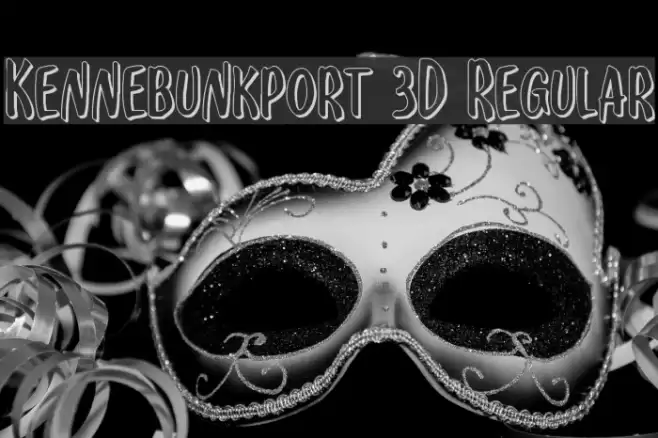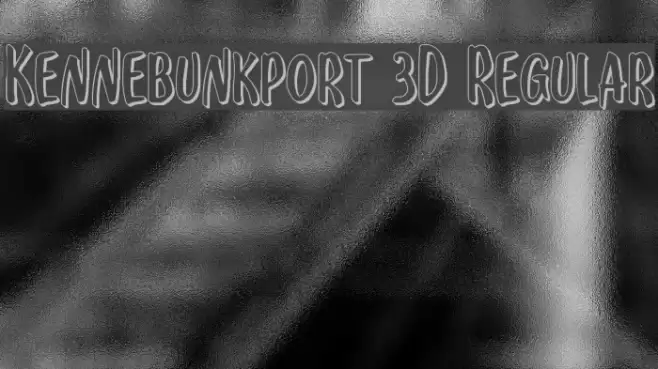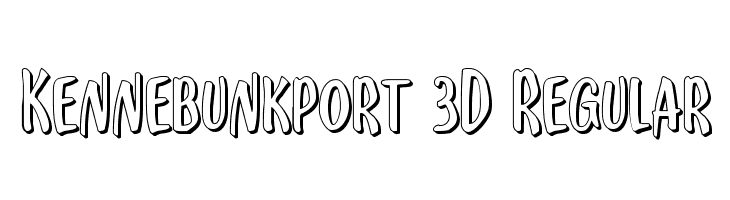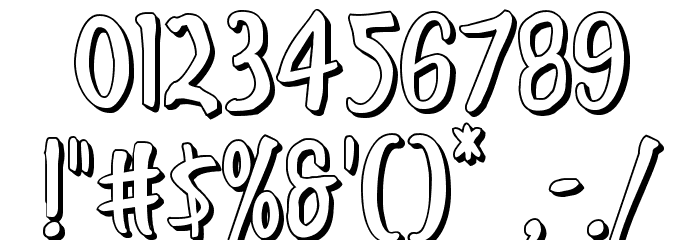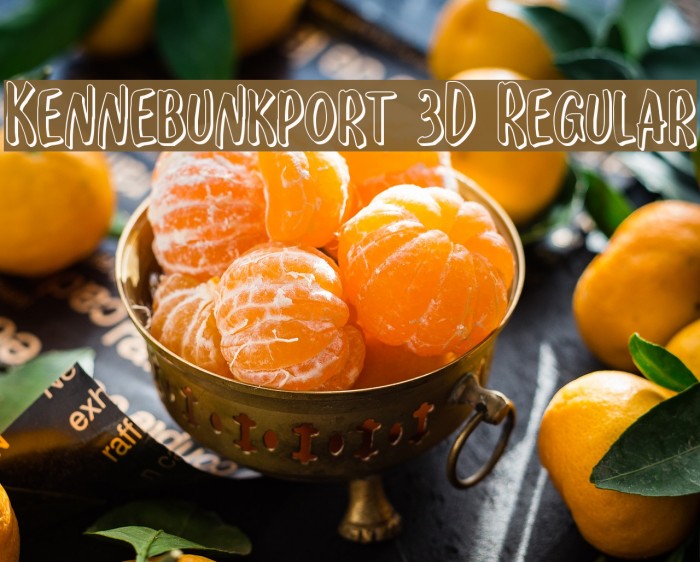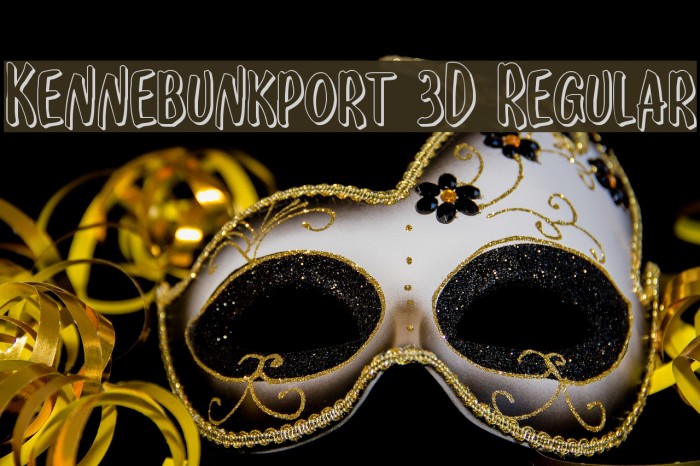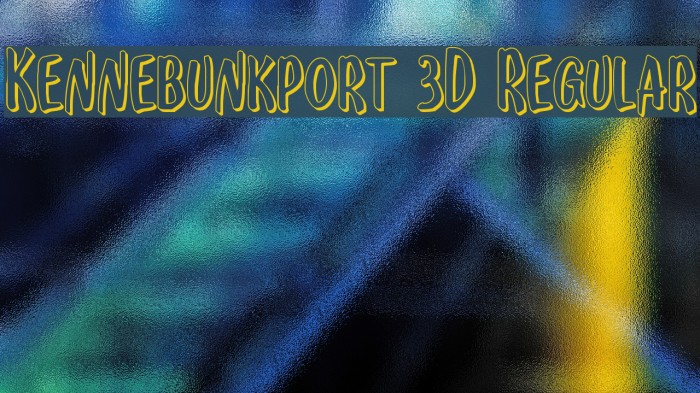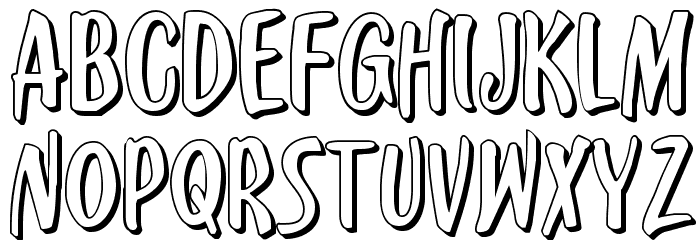
Kennebunkport 3D Regular Font
Kennebunkport 3D Regular Description
This font features a playful and bold 3D effect, with each character outlined to create a sense of depth. The letters are uppercase and lowercase, with a consistent thickness that gives a uniform appearance. The style is reminiscent of hand-drawn or comic book lettering, adding a whimsical and informal touch. The numbers and special characters maintain the same playful style, ensuring a cohesive look across all text. The font's unique 3D effect makes it stand out, making it suitable for eye-catching designs.
A playful, bold 3D font with a hand-drawn, comic book style from Comic fonts.
- Proposed Projects: Ideal for children's book covers, comic strips, playful branding, or any project needing a fun and engaging typeface.
- Overall Style: Playful, Comic, Hand-drawn
- Use Case: Headlines, Posters, Branding